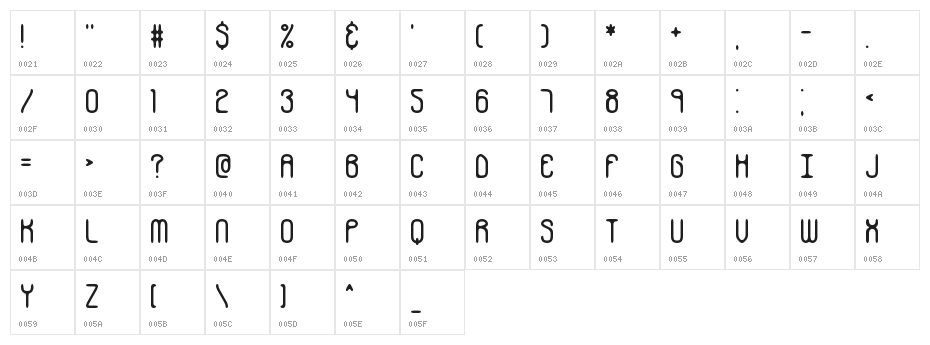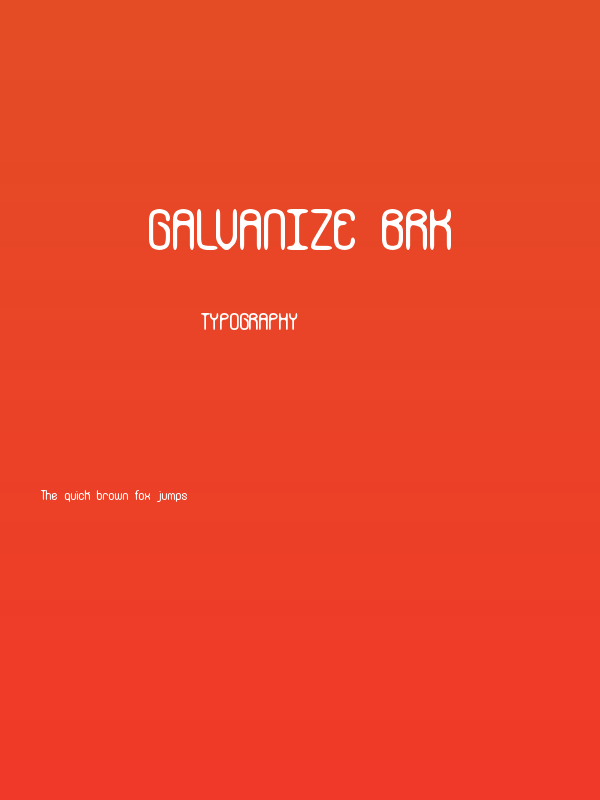
Galvanize BRK Font
Galvanize BRK Description
This font features a unique, rounded design with a modern and playful aesthetic. Each character is crafted with smooth curves and consistent stroke widths, giving it a cohesive and friendly appearance. The uppercase and lowercase letters maintain a uniform style, while the numerals and special characters complement the overall look. Its distinct, rounded edges and clean lines make it stand out, offering a contemporary feel that is both approachable and stylish.
| Proposed Projects | Ideal for branding, packaging, children's books, and creative digital projects. |